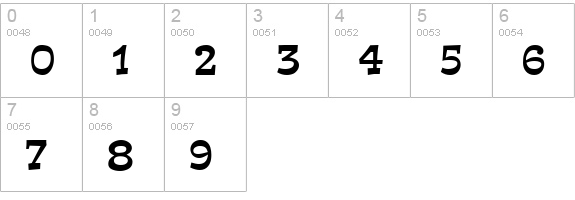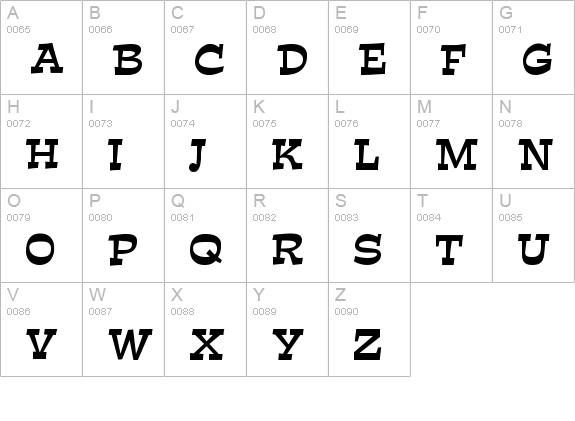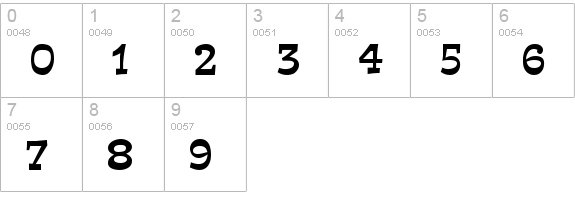
Expose Normal is the standard, neutral variant in the Expose typeface family \xE2\x80\x94 well suited to general body text, paragraphs, and standard typographic work.
Expose Normal font is a modern and sleek typeface that exudes sophistication and elegance. With its clean lines and balanced proportions, this font is perfect for a wide range of design projects, from branding to editorial design. The Expose Normal font is versatile and easy to read, making it suitable for both print and digital applications. The best part? Expose Normal font is completely free to download at FontsMarket.com. Whether you're a professional designer looking for a new go-to font or a hobbyist looking to spruce up your projects, Expose Normal font is a fantastic choice. Don't miss out on this stylish and versatile typeface - download it for free today!